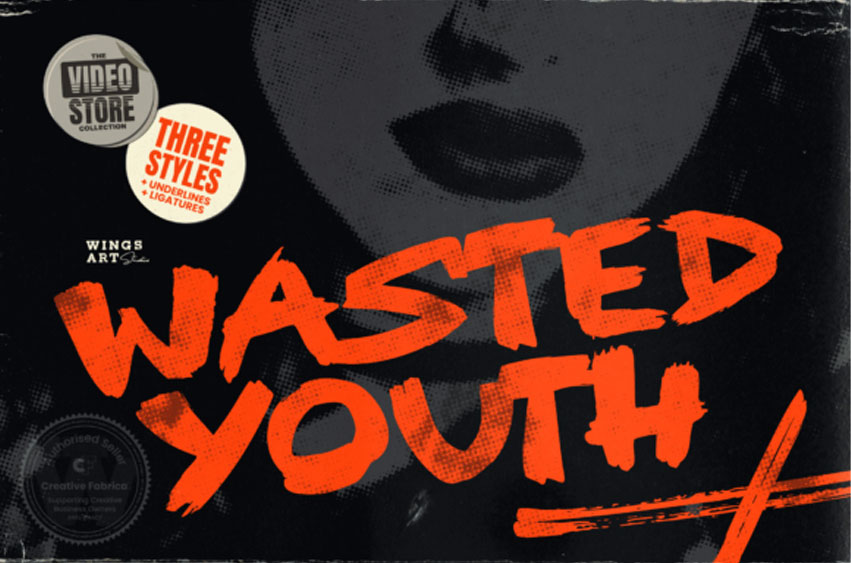
Wasted Youth Font
Wasted Youth Font is a dramatic and scary-looking display font. Add it to each of your October designs and notice how it instantly makes them stand out.